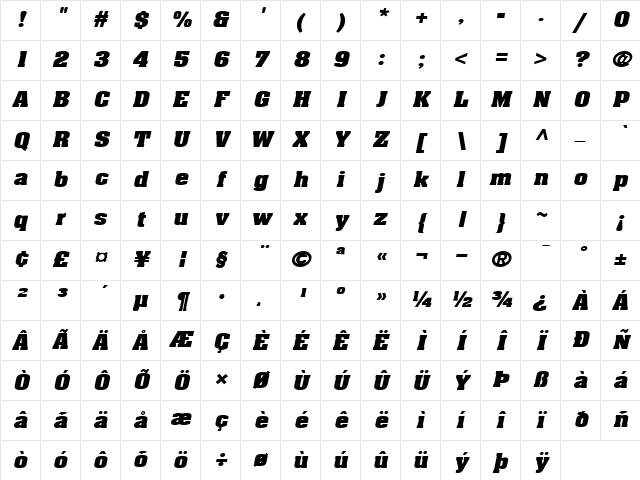
Heidelberg-Expanded Italic
Design Context for Heidelberg-Expanded
Heidelberg-Expanded is a composed and adaptable typeface that performs quietly and consistently across a wide range of design contexts. The slanted form adds forward momentum and visual energy.
Pro Tip: Use Heidelberg-Expanded for emphasis, pull quotes, and subheadings where its slanted energy can add rhythm to the layout.